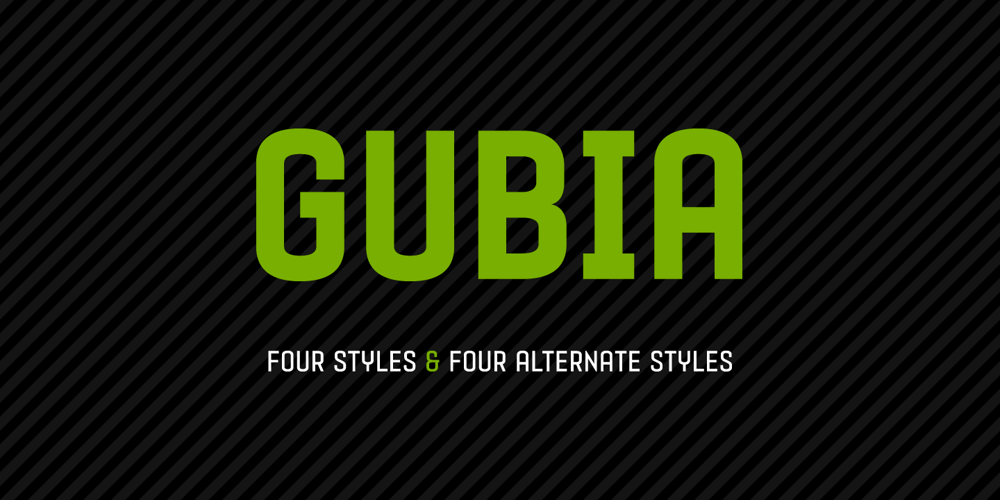
Gubia Font Family was designed by Pablo Balcells and published by Graviton. Gubia contains 8 styles and family package options. Gubia font family has been designed for Graviton Font Foundry by Pablo Balcells. It is a geometric, sans serif typeface with a slightly condensed design. It has been conceived to be most suitable for all sized headlines, as well as short and middle length text blocks. The standard styles give texts a classic appearence while alternate styles give texts a playfull one. Gubia consists of 8 styles, 4 weights plus alternates, each containing small caps and glyph coverage for several languages.